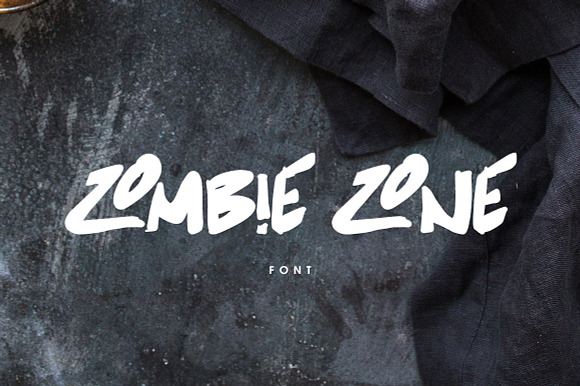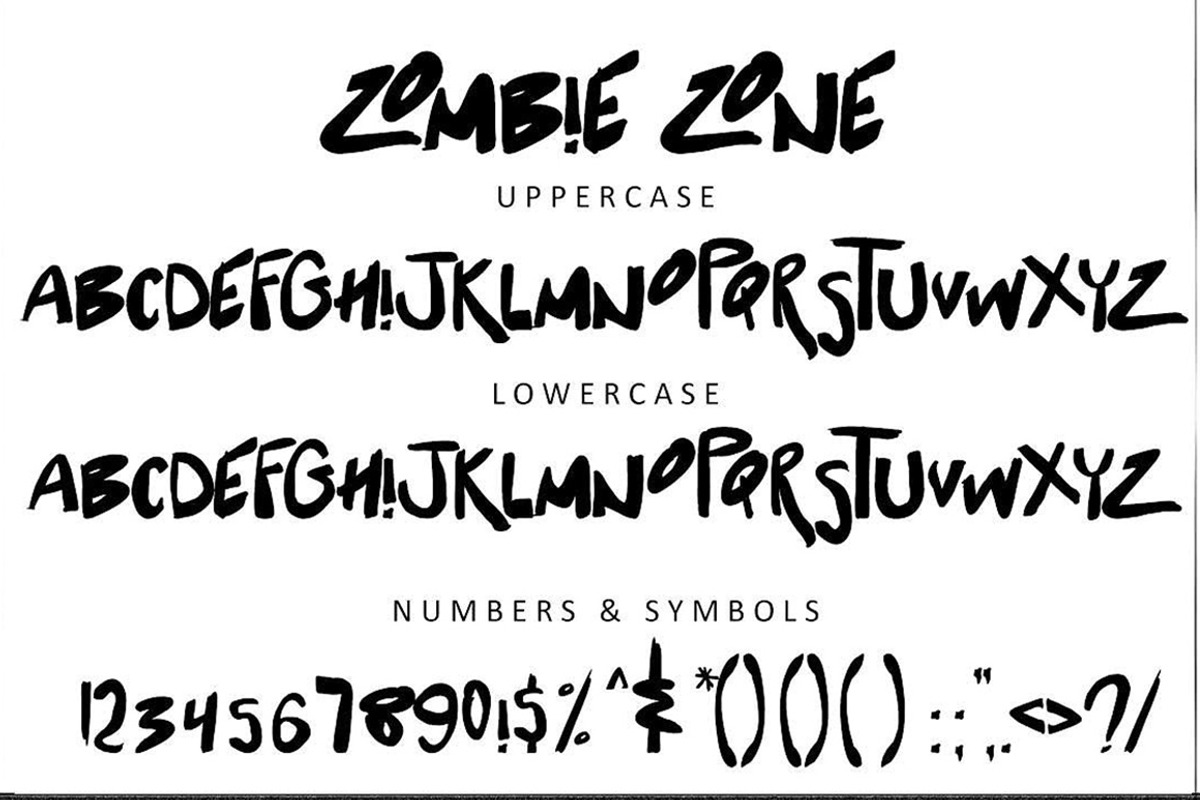
Zombie Zone Font
This is Zombie Zone. A trendy unique all caps font. This font is part of the Big Bunch of Fonts Volume 2 here
Why Zombie Zone Font is worth a look
Zombie Zone Font by Creativeqube Design fits naturally into Branding, posters, packaging, typography.